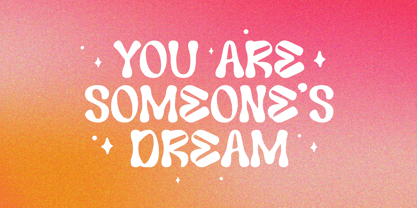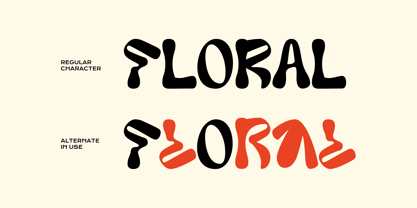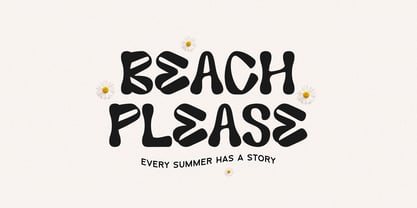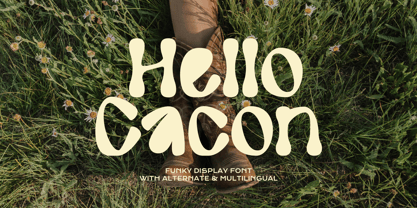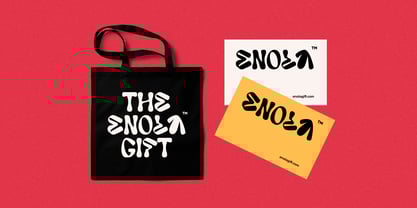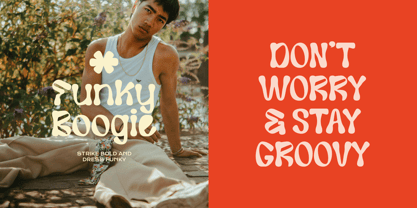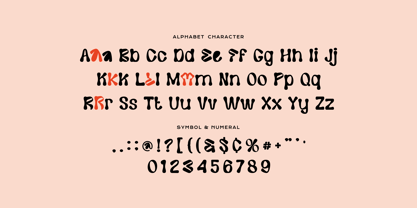
Hello Cacon
The Hello Cacon Font Family was designed by Aulia Savira Putri and published by Imoodev. Hello Cacon contains 1 styles. More about this family
Hello Cacon is a groovy funky font that channels a carefree, 1970s 'funk' spirit: it has heavy, uneven letterforms, soft, bloated terminals and give each letter a slightly wavy, organic silhouette.
This font is perfect for creative projects and designs that desire a playful, funky, and retro inspired aesthetic, such as youth fashion branding, music festival posters, signage, album covers, 70s themed party invitations, vintage car shows, and social media graphics.